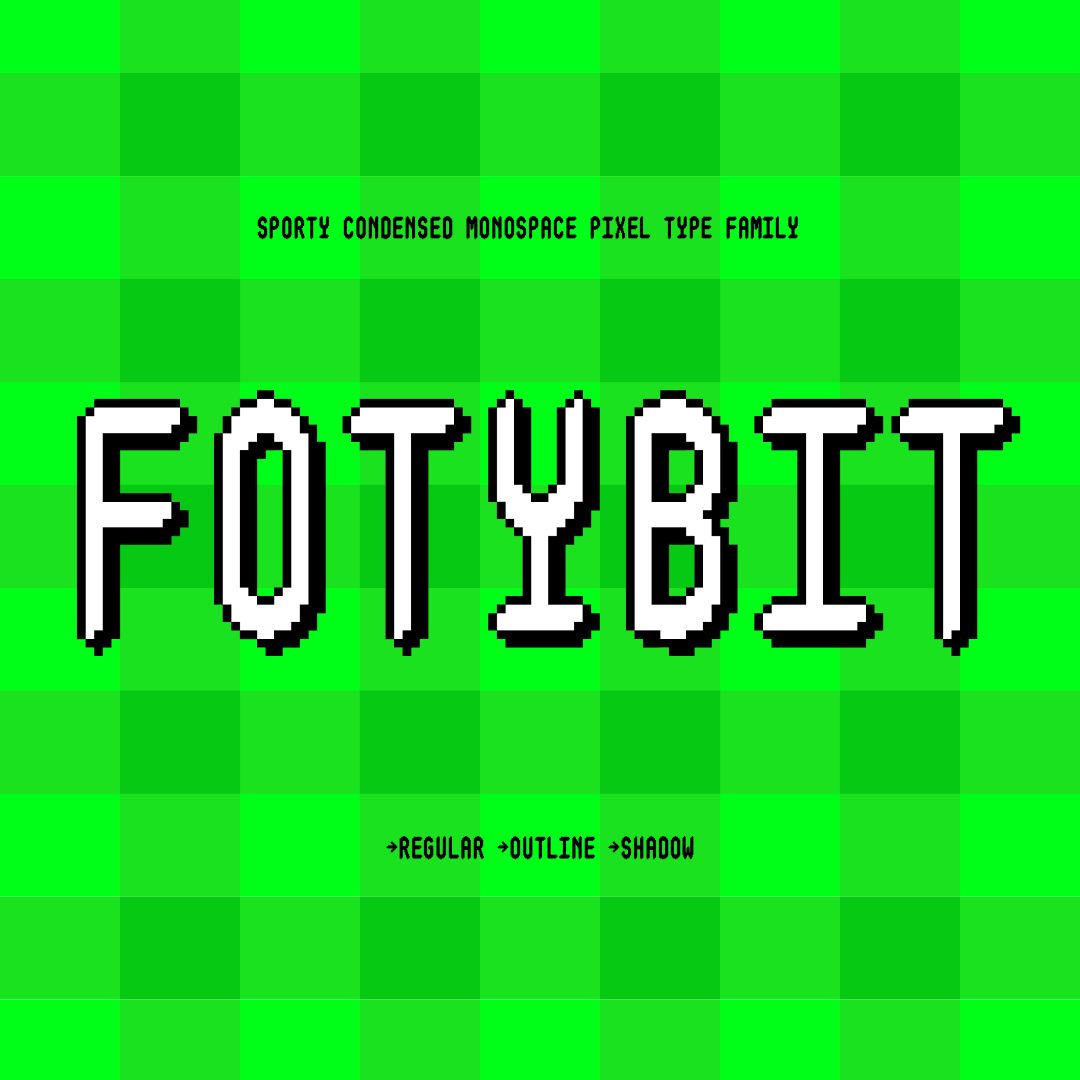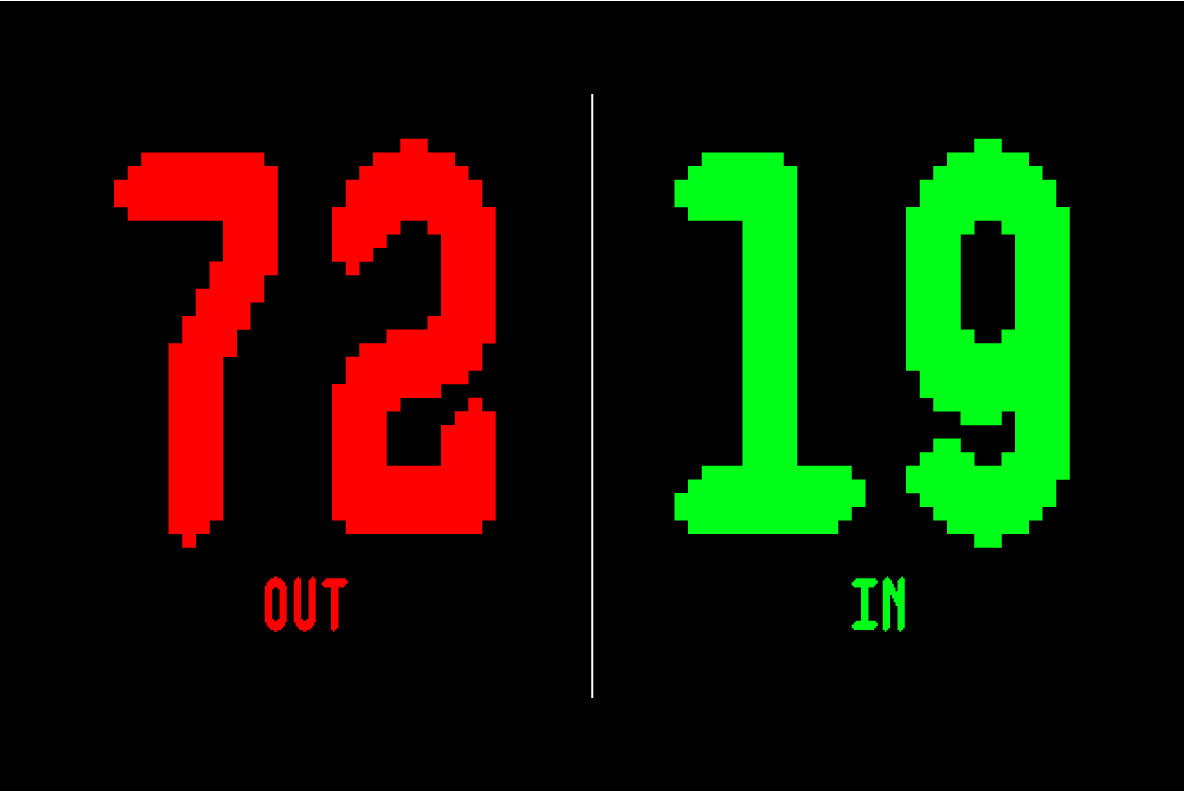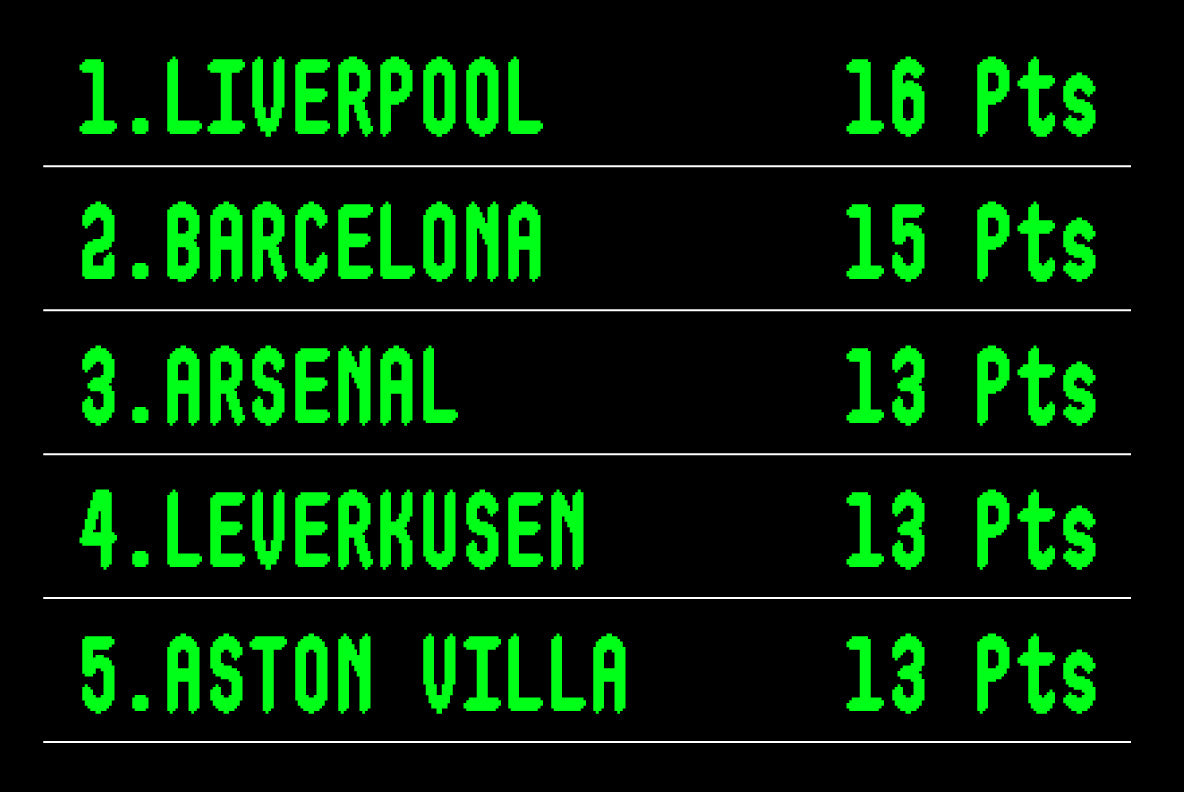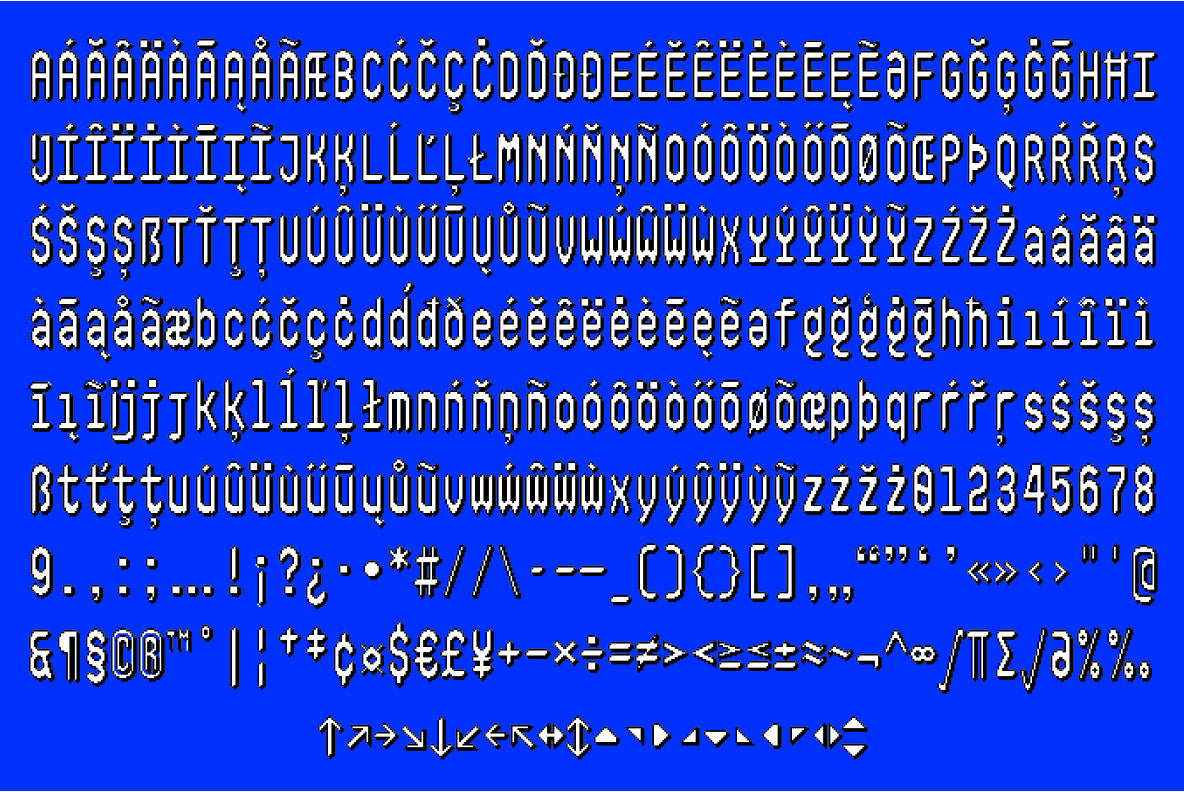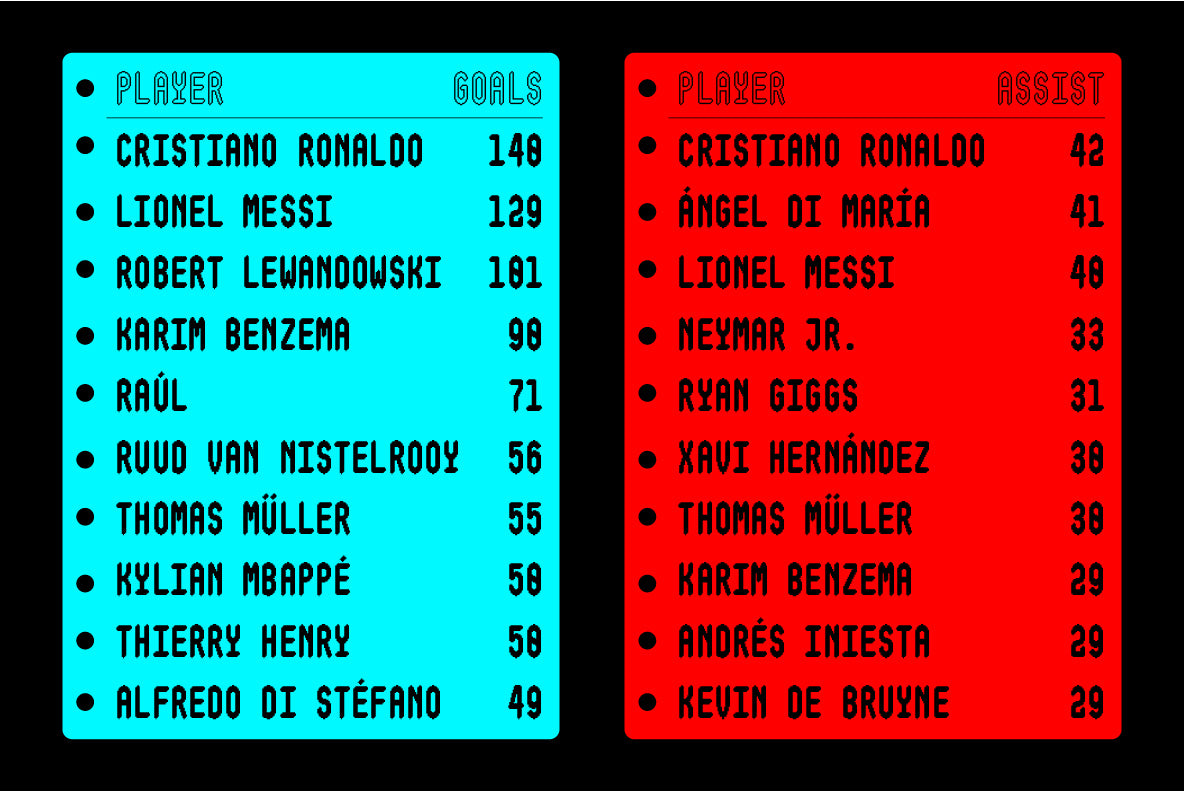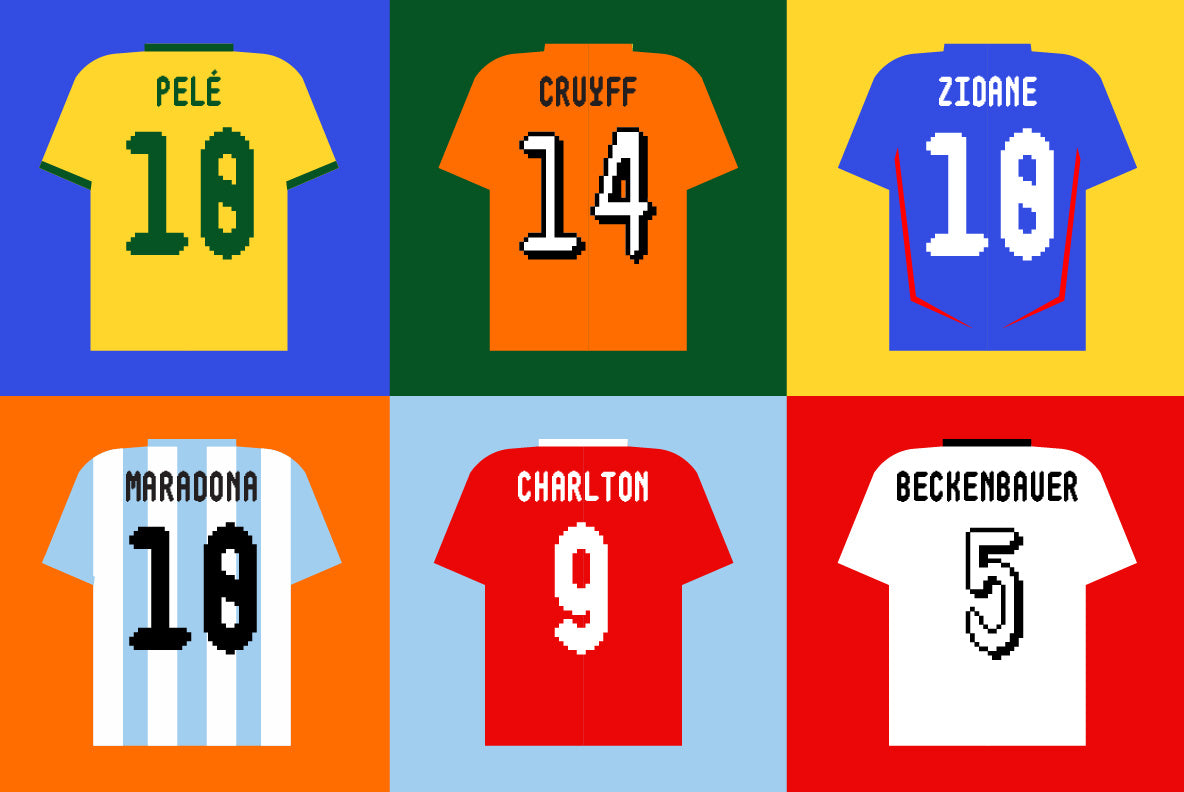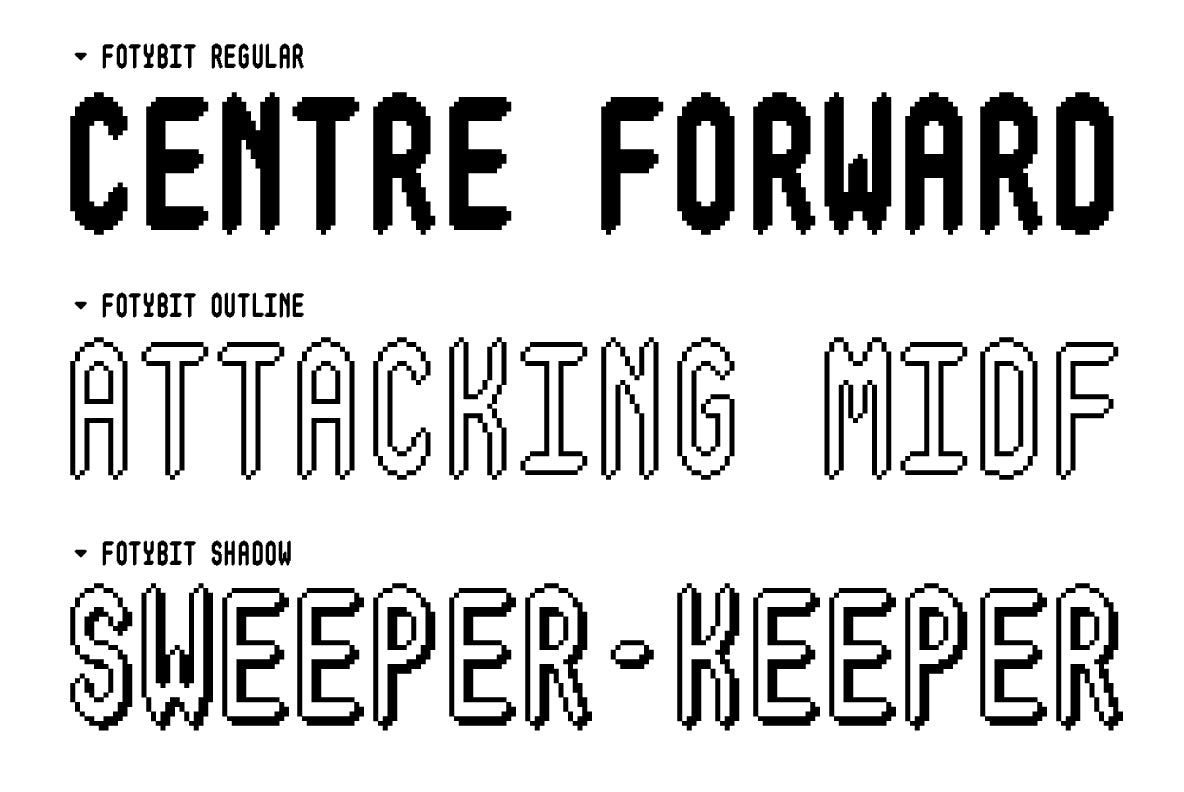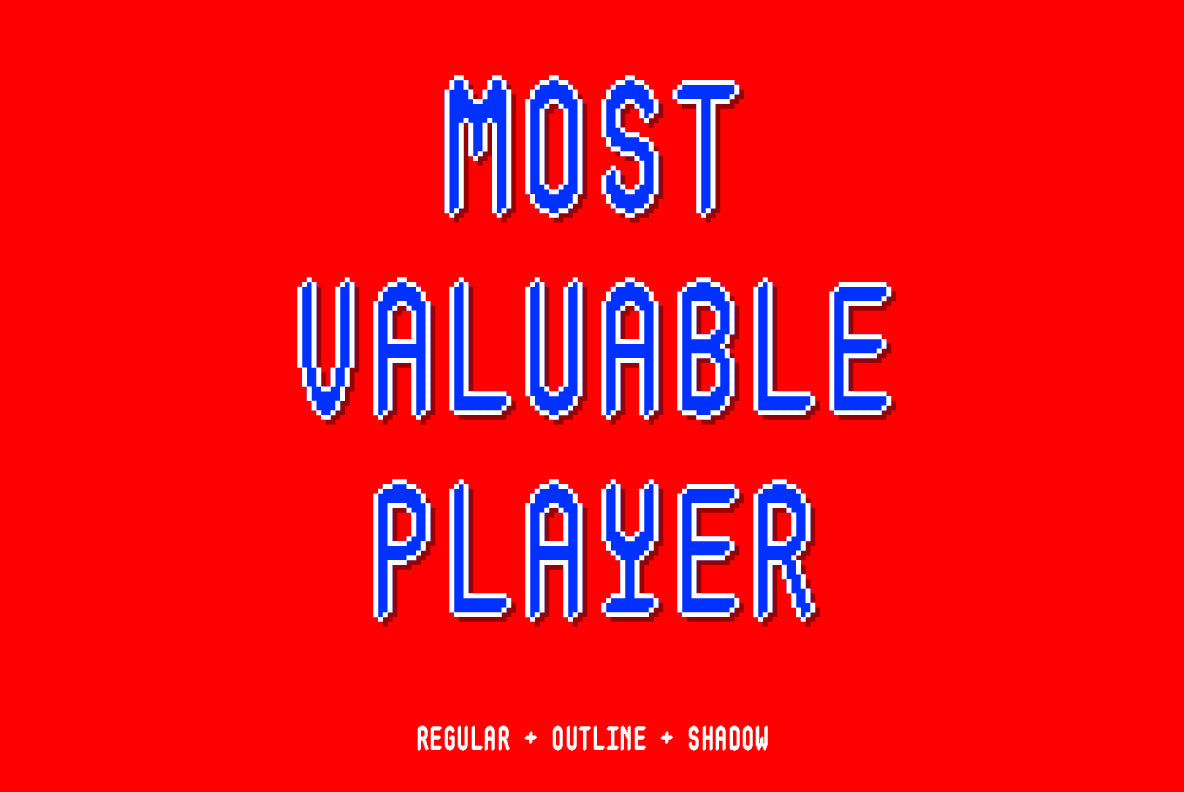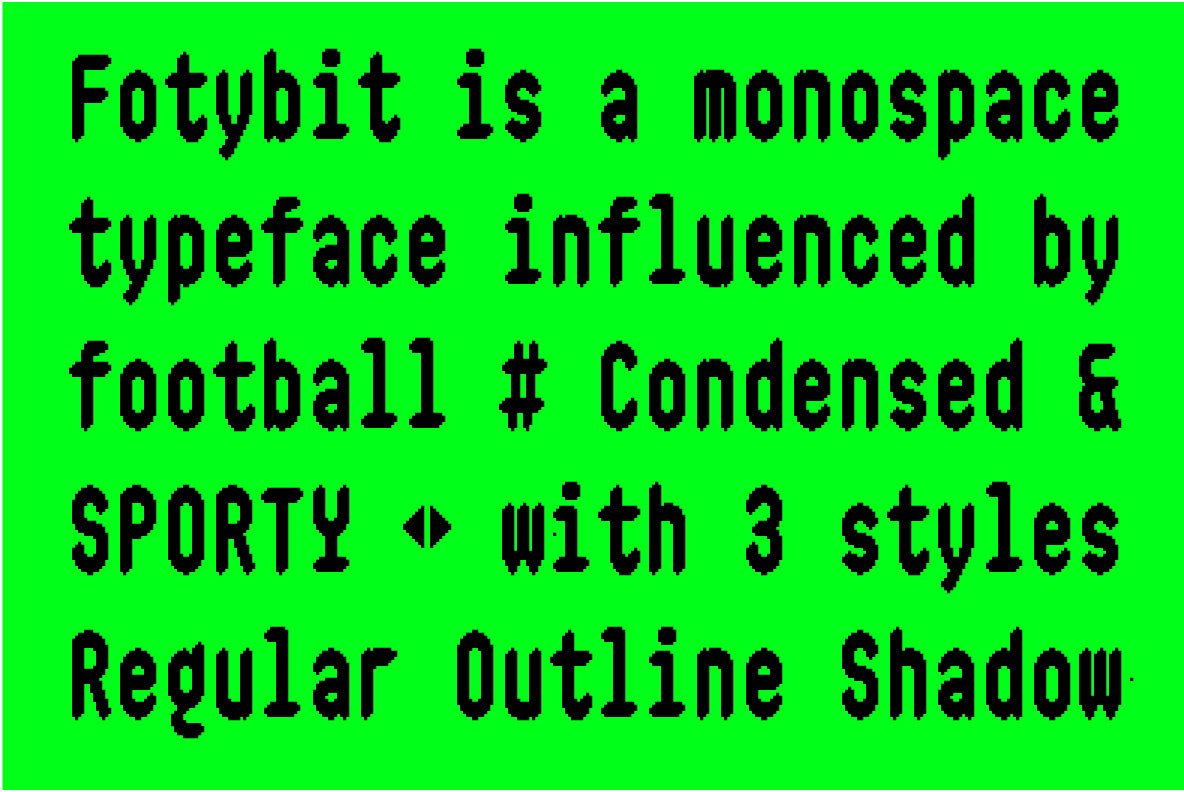
Fotybit – Pixel Monospace Sports Font
Fotybit is a condensed monospace pixel font inspired by the energy of football, retro sports graphics, and digital scoreboards. Its compact proportions, clean grid-based construction, and pixelated details create a distinctive retro-digital aesthetic with a dynamic athletic feel.
Designed for bold and functional display typography, Fotybit is perfect for sports branding, football graphics, digital scoreboards, gaming interfaces, esports designs, posters, headlines, and retro-inspired creative projects.
Fotybit comes in Regular, Outline, and Shadow styles, giving you multiple options to build layered typography, dynamic sports graphics, and eye-catching display compositions.
Pixel Font — Grid-based pixel construction inspired by retro digital displays and classic video games.
Monospace Design — Consistent character widths create a structured and technical appearance.
Condensed Proportions — Compact letterforms work especially well for headlines, numbers, and limited-space layouts.
Sports-Inspired Style — Athletic details and football-inspired energy make it ideal for sports-related designs.
3 Font Styles — Includes Regular, Outline, and Shadow styles for greater creative flexibility.
Multilingual Support — Includes an extensive character set for multiple languages.
Numerals & Punctuation — Designed for versatile typography and information-based graphics.
Fotybit combines the precision of monospace typography with the energy of sports and the nostalgia of pixel graphics, making it a versatile choice for bold digital, gaming, and athletic designs.
Fotybit is a condensed monospace pixel font with grid-based construction, available in Regular, Outline, and Shadow styles. It includes multilingual character support, numerals, and punctuation.